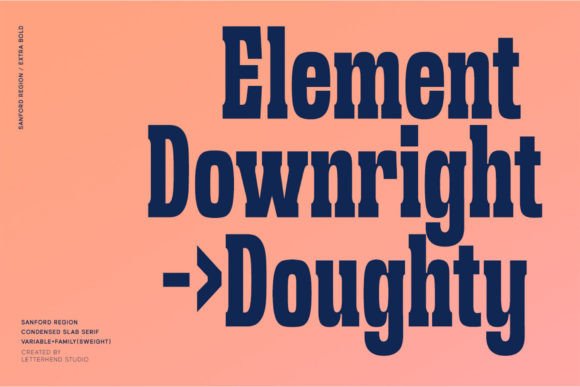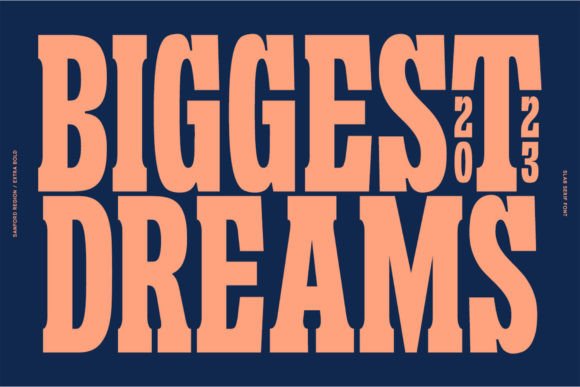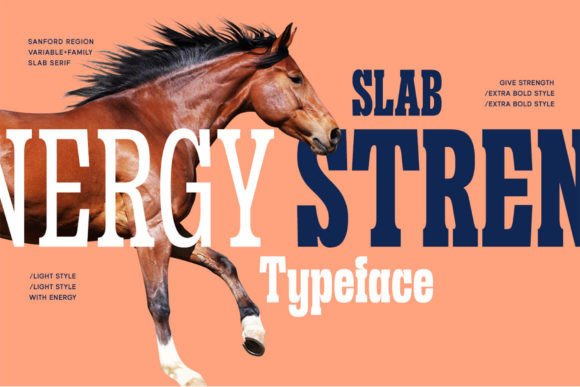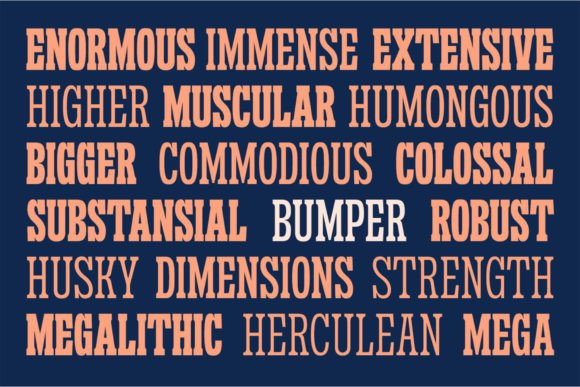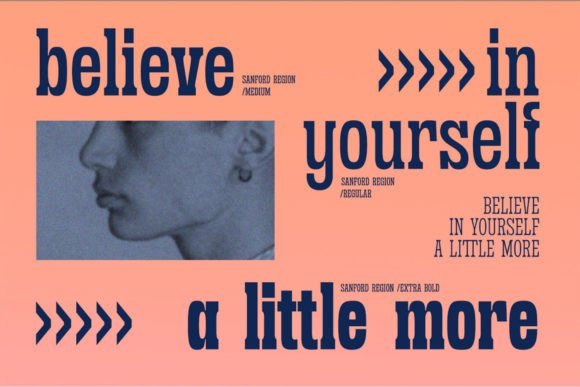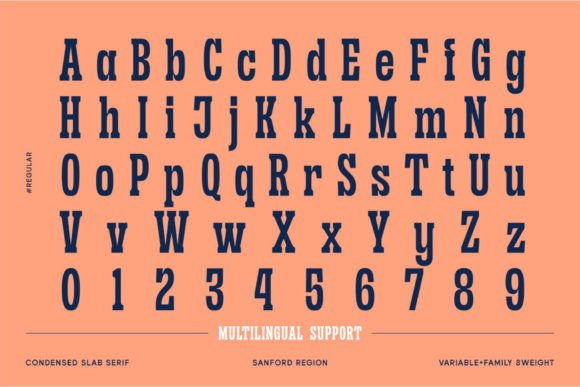
Introduction to Sanford Region Font
As a designer, have you ever been stuck on a project, struggling to find the perfect font to convey your message? I know I have. It was during one of those late-night design sessions that I stumbled upon the Sanford Region Font – a condensed slab serif typeface that instantly sparked my creativity. Its strong, modern look and feel had me hooked, and I knew I had to learn more.
What I discovered was a high-quality design resource that’s perfect for logos, headlines, signage, and other formal forms. With its versatility and unique style, the Sanford Region Font is a valuable asset for any creative project. Whether you’re working on a free download or a paid design, this font is sure to elevate your work. In this article, we’ll dive deeper into the world of Sanford Region Font and explore its many benefits.
Key Features of Sanford Region Font
- High-quality design resource suitable for creative projects, available for free download
- Unique blend of modern and vintage elements, offering a distinctive look for your designs
- Features a transparent background, allowing for seamless integration into your design
- Available in multiple sizes, with a high resolution of 300 DPI, ensuring crisp and clear display
- Perfect for use in a variety of creative projects, including graphics, logos, and typography-based designs
Honest Review: Sanford Region Font
As a designer, I’ve had the pleasure of working with various fonts, and the Sanford Region Font is one of the latest additions to my design resource arsenal. I was excited to try it out for my next creative project, and here’s my honest review.
- High-quality design: The Sanford Region Font boasts a clean, modern aesthetic that’s perfect for a variety of design projects.
- Transparent background: I appreciate that the font comes with a transparent background, making it easy to layer over other design elements.
- Limited font weights: While the font has a nice range of styles, I found it to be a bit limited in terms of font weights, which might not be suitable for all design projects.
- Not suitable for large text: I noticed that the font doesn’t scale well for large text, which could be a drawback for designers who need to use it for headings or titles.
Overall, I’m impressed with the Sanford Region Font, and I think it’s a great addition to any designer’s toolkit. While it may have some limitations, its high-quality design and transparent background make it a valuable resource for creative projects. I’d definitely recommend it to fellow designers looking for a reliable and versatile font.
Sanford Region Font
The Sanford Region Font is ideal for use in creative projects, such as:
- Brochure and flyer design
- Poster and banner design
Tips for Getting the Most Out of the Sanford Region Font
To get the most out of the Sanford Region Font, consider the following tips:
- Use the font in combination with other design elements to create a unique look.
- Experiment with different font sizes and styles to add visual interest.
- Use the font on a transparent background to create a modern and sleek look.
Alternatives to Sanford Region Font
Open Sans Font is a free download, high quality sans-serif font ideal for a wide range of design projects, from print to web. It’s perfect for creating a clean and modern look in your creative project. When to use: body text, headings, and titles. Compared to Sanford Region Font, Open Sans Font is more versatile and has a wider range of font sizes and weights.